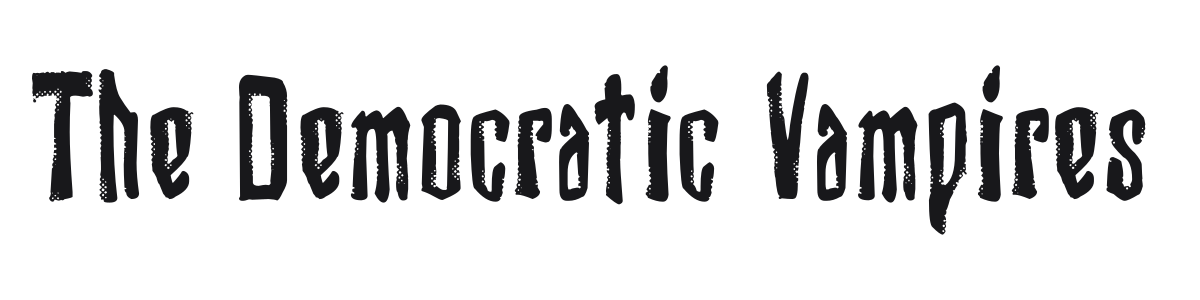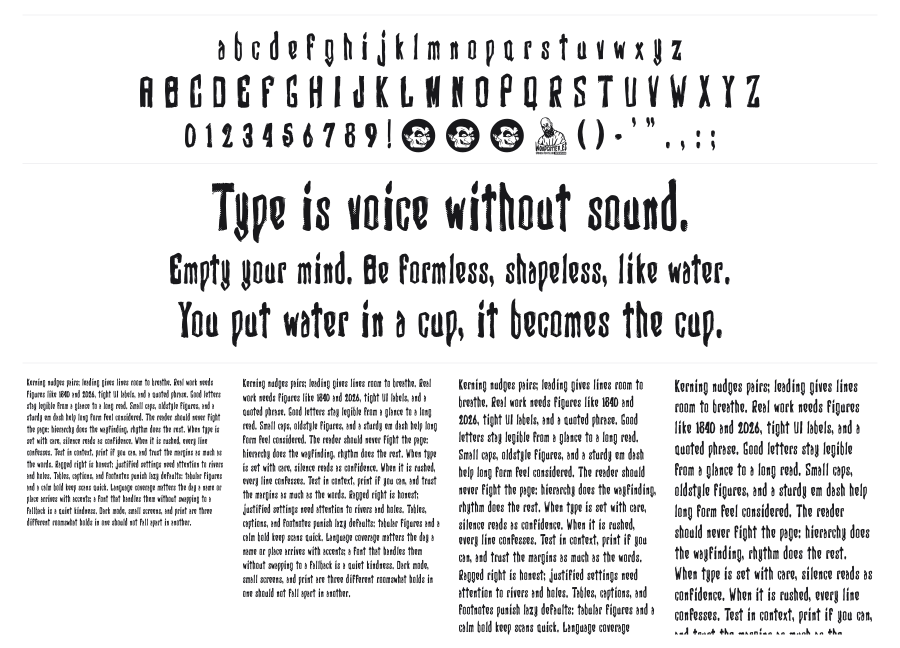
The Democratic Vampires
The Democratic Vampires is a heavy condensed blackletter from Woodcutter with a striking halftone dot texture eroding every stroke. The gothic architecture of the characters — pointed arches, angular joints, tight spacing — reads as authentically medieval while the distressed surface pushes it firmly into horror and counterculture territory. A strong choice for band logos, horror titles, and anything that needs to feel genuinely threatening.